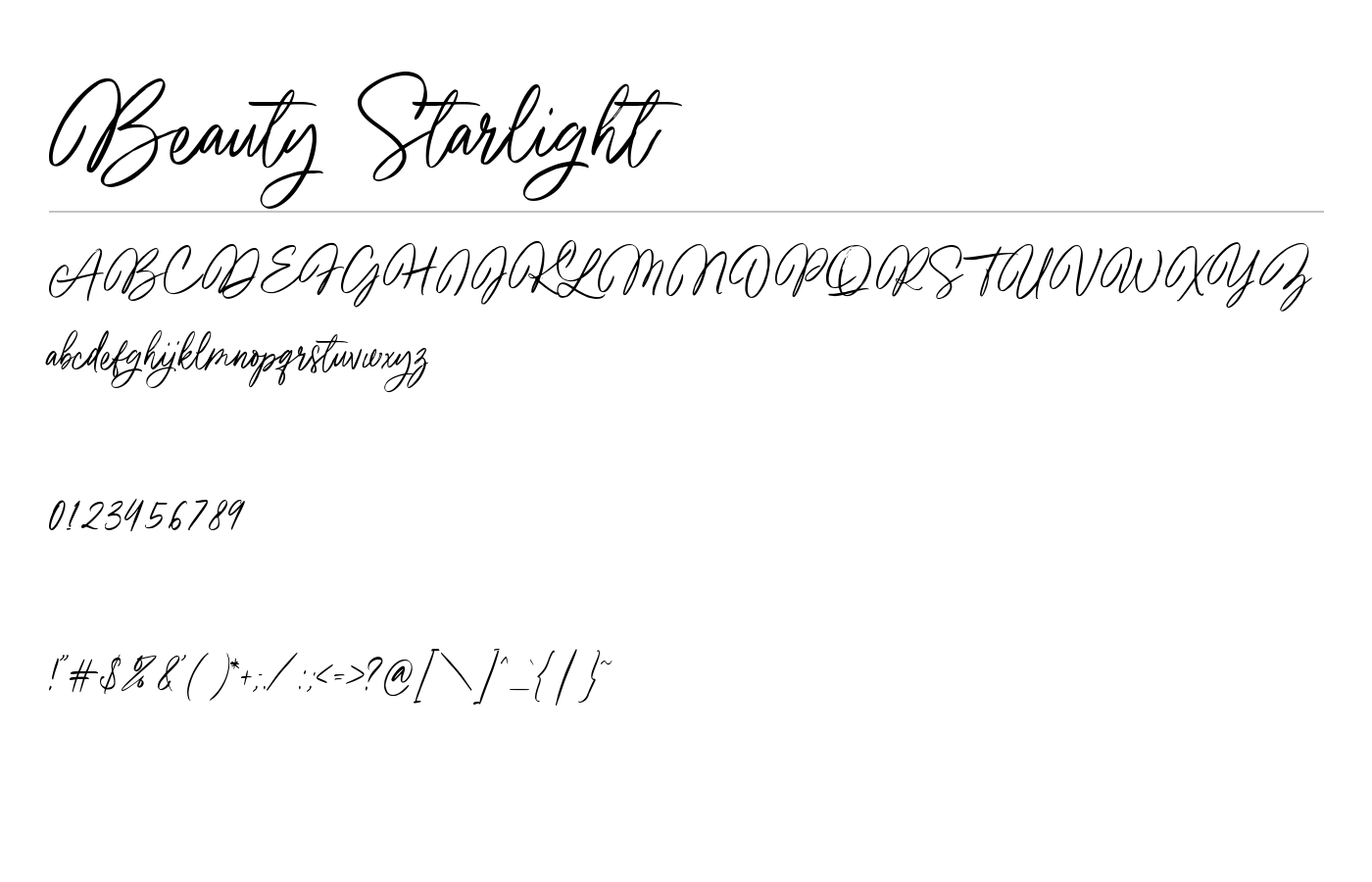
Beauty Starlight is an elegant, delicate script font that features thin, flowing strokes with a natural, handwritten feel. Its slender letterforms and graceful curves make it perfect for sophisticated branding, invitations, and feminine designs where a refined yet approachable style is desired. This font shines in contexts that call for a personal touch and stylish flair, such as beauty, fashion, and luxury projects.
Beauty Starlight Font
About Beauty Starlight Font